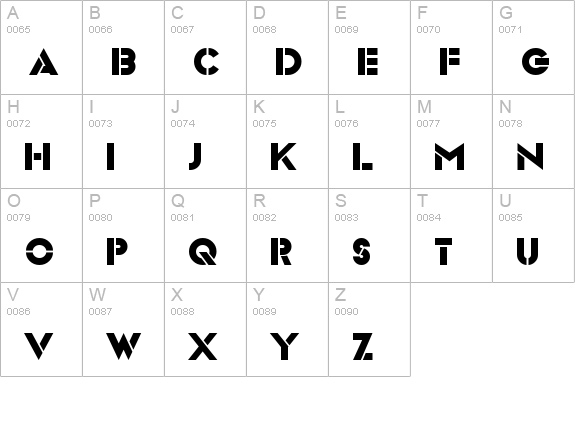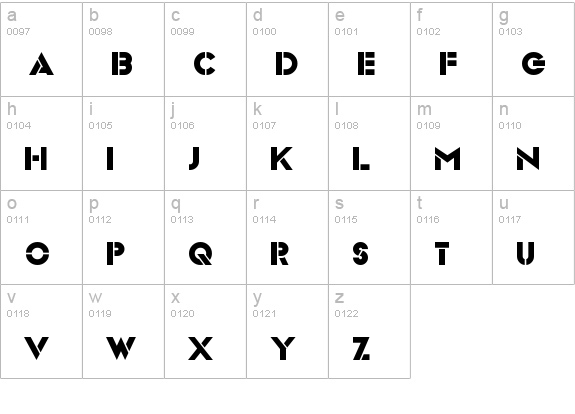
Videopac is a free for personal use font in the Modern > Stencil category. It has been downloaded 55 times and is available for Windows, Mac and Linux.
The Videopac font is a versatile and eye-catching typeface that is sure to make a statement in any design project. Its sleek and modern design is perfect for a wide range of applications, from branding and advertising to web design and print materials. With its clean lines and geometric shapes, the Videopac font exudes a sense of professionalism and sophistication. Its bold and distinct characters ensure maximum legibility, making it an ideal choice for headlines, titles, and other prominent text elements. What sets the Videopac font apart is that it is not only visually appealing, but also freely available to download at FontsMarket.com. This means that designers and creatives can easily access this stunning font without any cost, making it a valuable addition to their font library. Whether you're working on a personal project or a professional assignment, the Videopac font offers endless possibilities. Its versatility allows it to seamlessly adapt to various design styles and themes, ensuring that your message is delivered with impact and style. So why wait? Enhance your designs with the elegance and charm of the Videopac font. Download it for free at FontsMarket.com and explore the endless creative possibilities it has to offer.